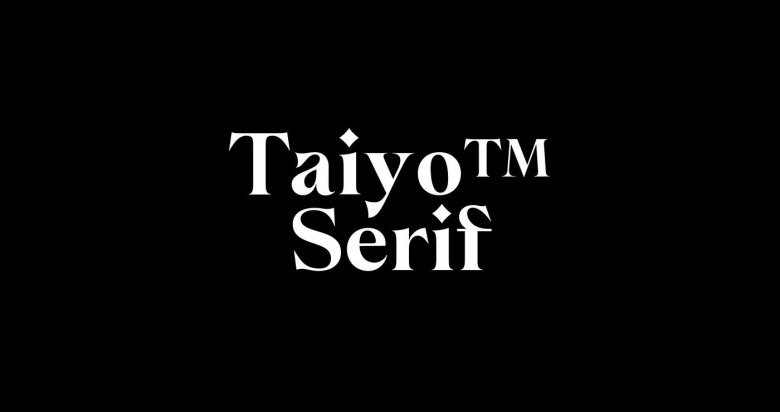
Taiyo Serif Font
Taiyo Serif Font designed by KOBU Agency is a vintage serif font series inspired by the fonts of 70s. In addition to being inspired by the editorials of the 70s and 80s, this font is a bold ode to the solar flares of our Sun classified as G2V star. Each weight contains a character set that includes uppercase, lowercase, numerals, diacritics, punctuation, base ligatures and symbols (including arrows).
In this way, this typeface supports more than 60 languages derived from Latin, namely Western, Central and South-Eastern European. Due to the high contrast, Taiyo’s typographic forms are easily recognizable, making it an excellent choice for titles and headlines. Taiyo™ can also be applied in small or long texts, and it’s a suitable choice for print pieces or digital media.